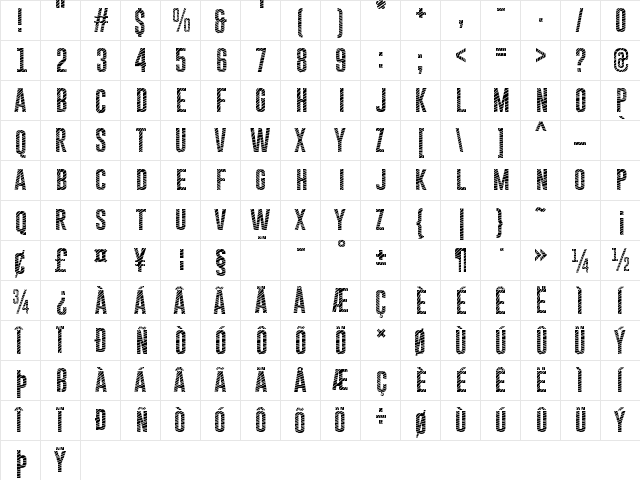
Gobold CUTS Regular
Design Context for Gobold CUTS Typeface
Gobold CUTS is a composed and adaptable typeface that performs quietly and consistently across a wide range of design contexts. Its bold stroke weight gives it real presence on the page.
Pro Tip: Use Gobold CUTS in both headline and body roles to test its range before committing to a single application.